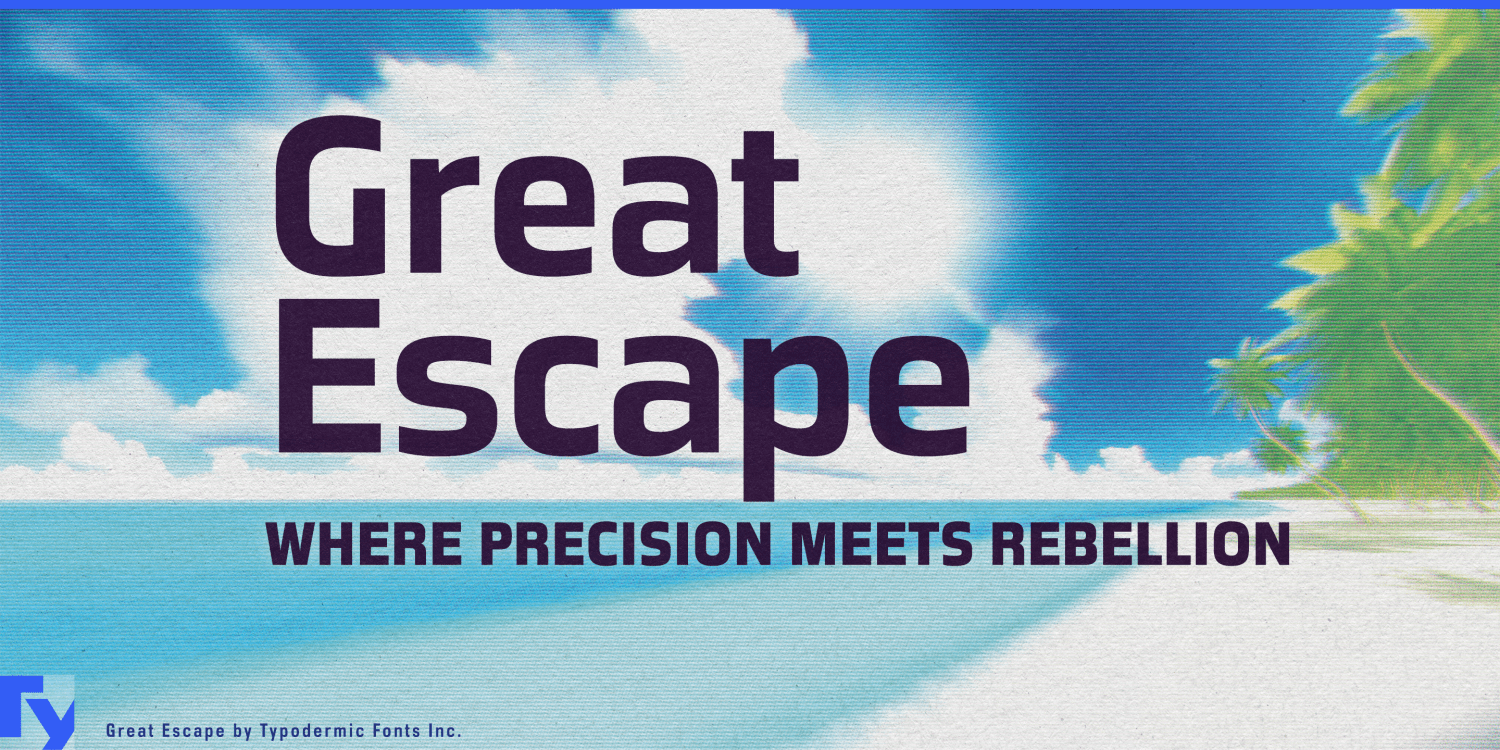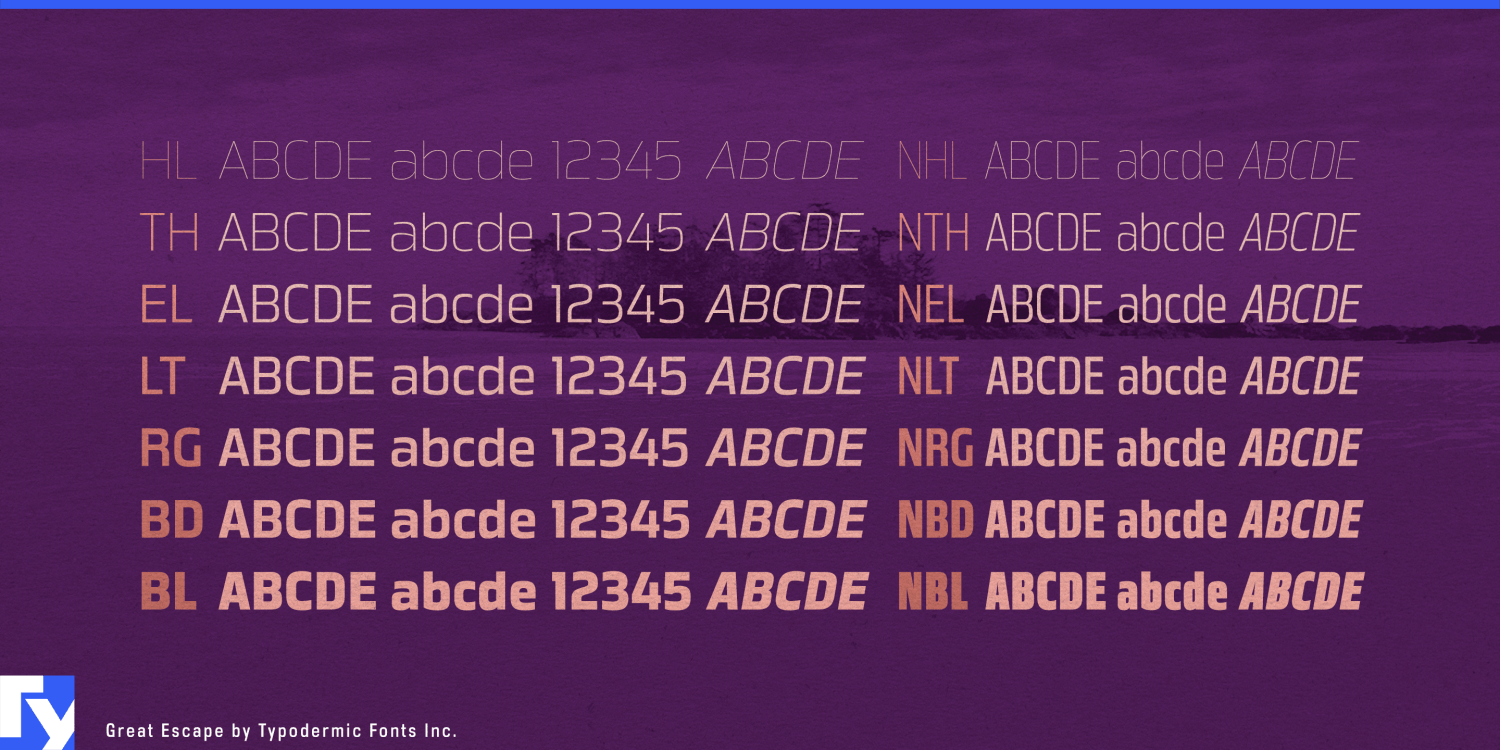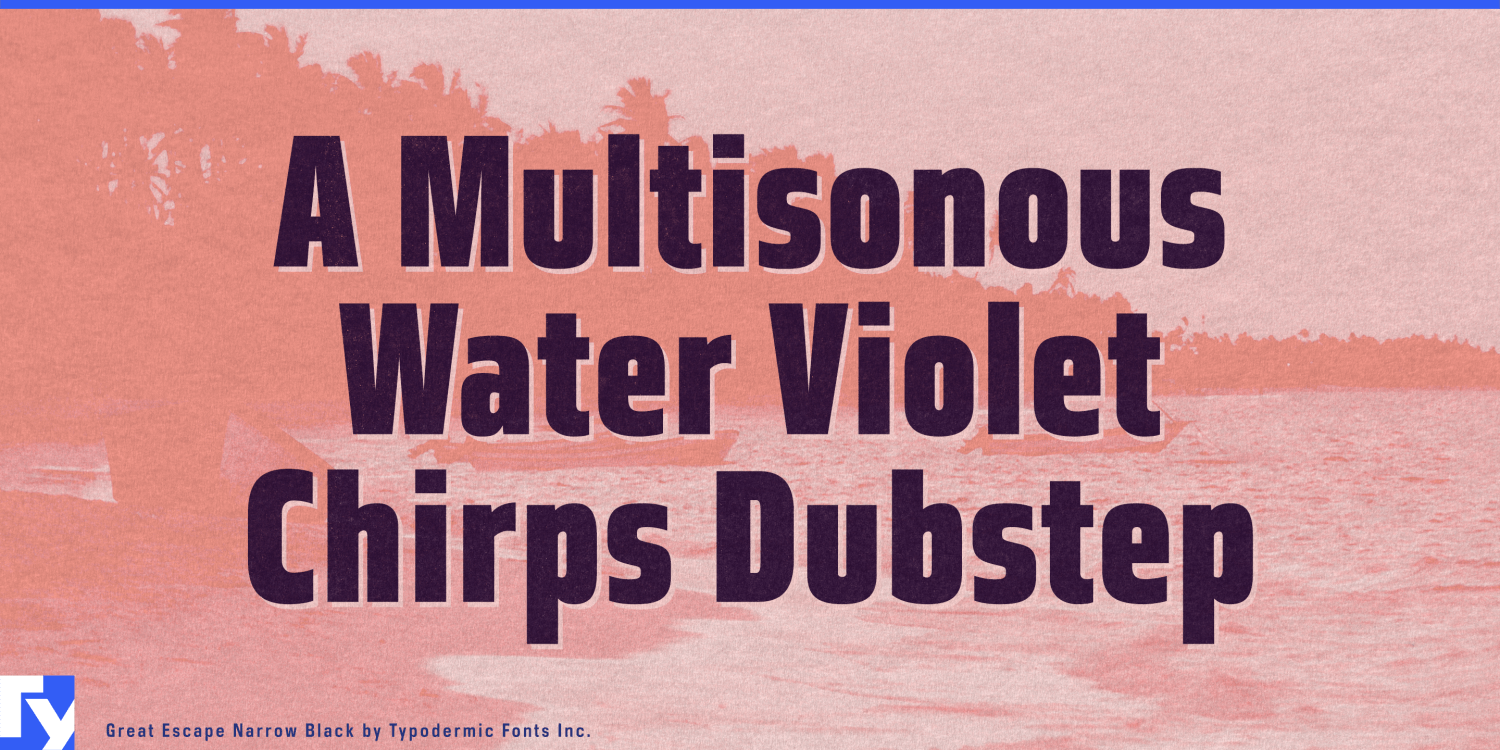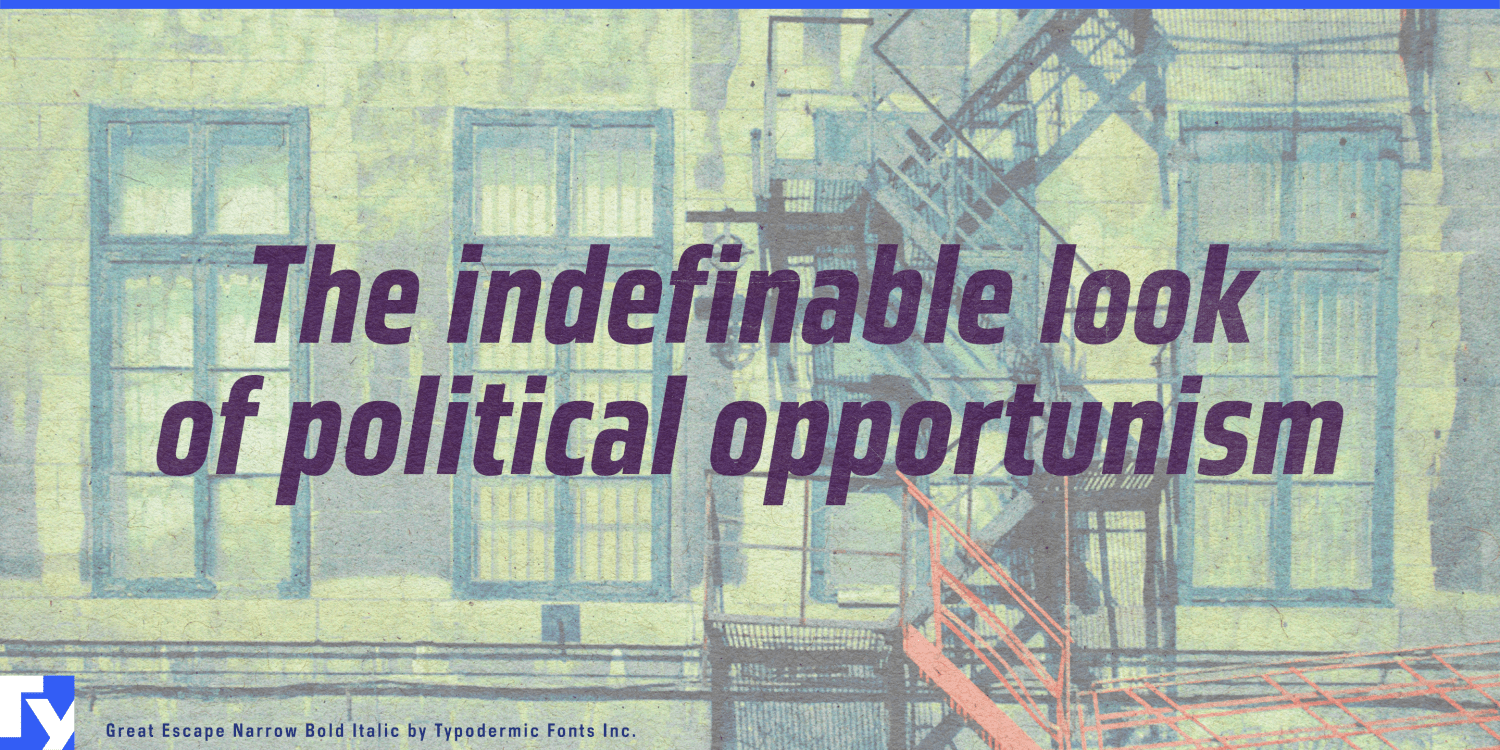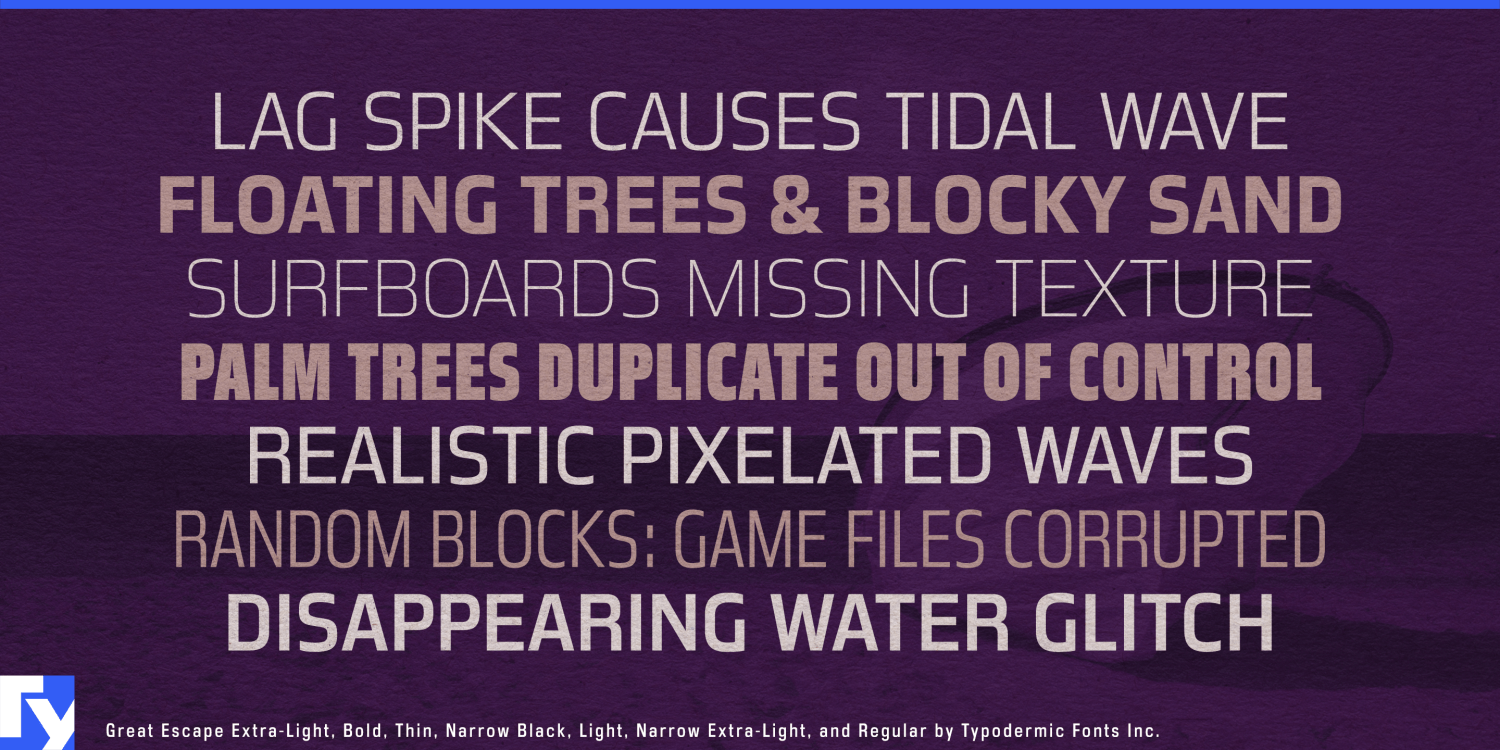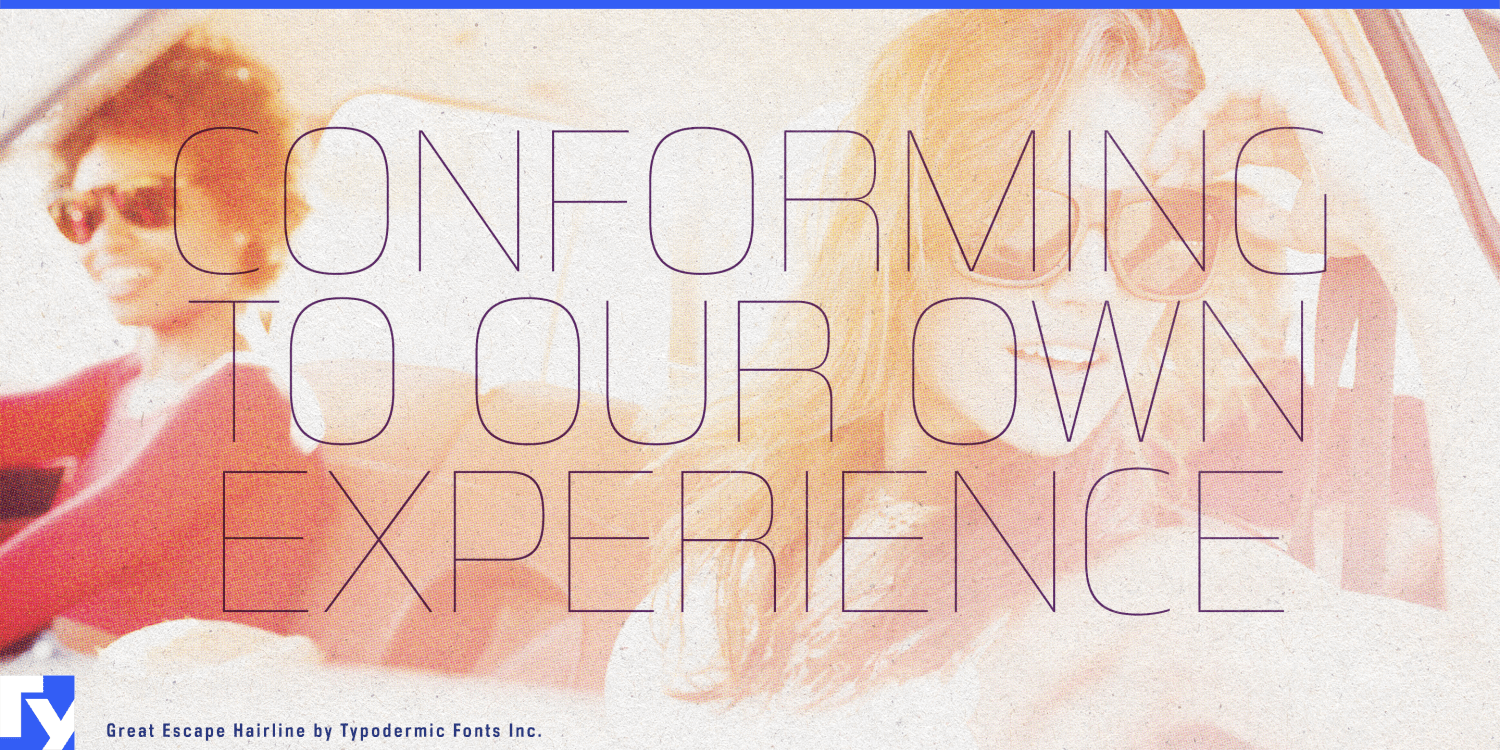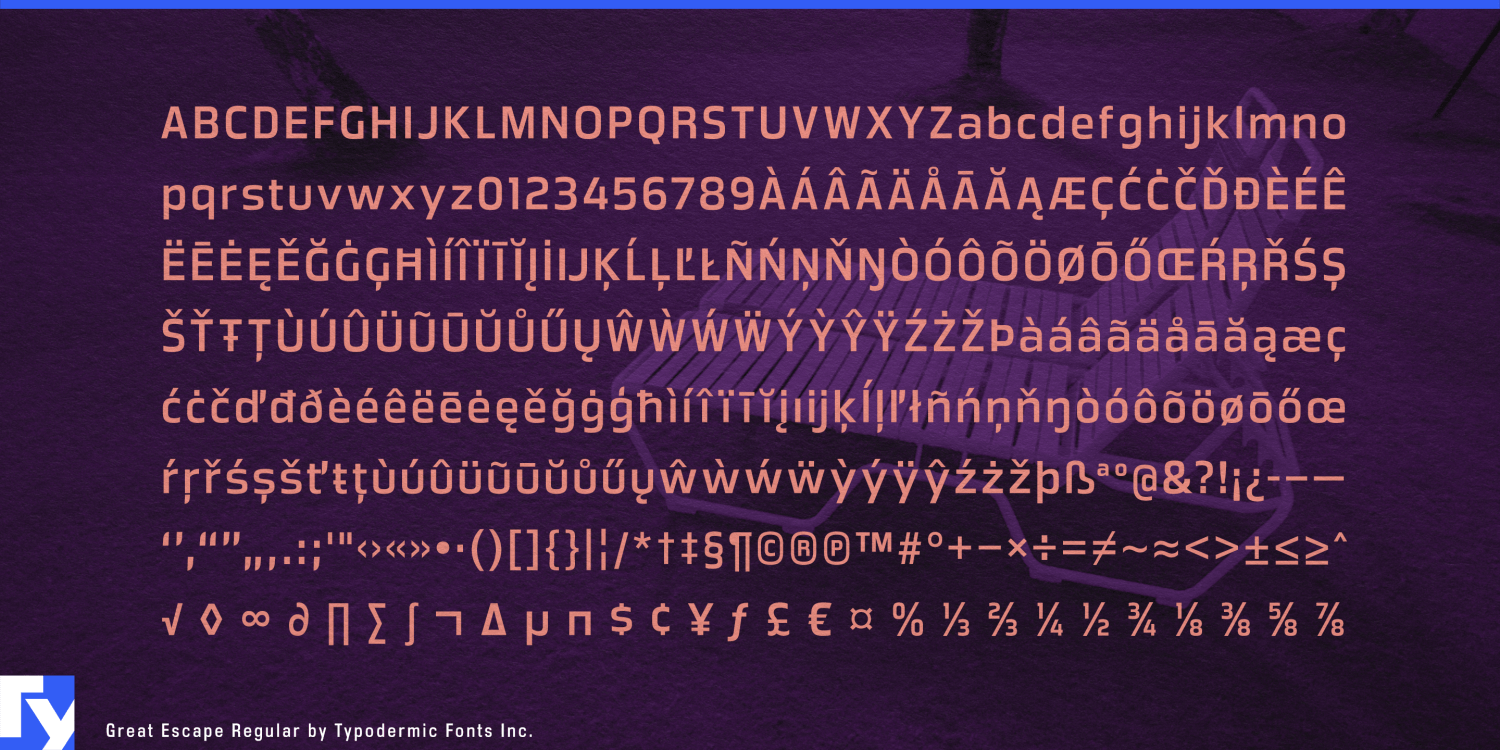
Great Escape
Font Family by Typodermic
Buy NowGreat Escape gives information-heavy campaigns a recognizable square-sans voice. It is especially useful in hypermarkets and big-box retail, where typography must compete with product photography, prices, offer details, and irregular promotional panels. Weekly-special covers, hanging aisle banners, shelf-edge product messages, garden-centre category signs, electronics-department sale boards, and seasonal barbecue or back-to-school campaigns all benefit from its compact, emphatic presence.
The same visual language suits consumer equipment and performance products. Great Escape can carry model names printed on portable speakers, fitness machines, and coolers; it also fits e-bike accessory cartons, camping-stove feature panels, outdoor-product catalogues, comparison cards, and instruction-sheet headings. It suggests engineering without making consumer products look like laboratory equipment.
Cycling and running events offer another practical setting. Race titles must fit across start gantries, long team names squeeze onto jersey panels, and sponsor information competes for space along course barriers. Great Escape can organize number plates, route signs, sponsor walls, result-board headings, broadcast straps, schedules, and video recap titles within one coherent event identity.
Science and engineering exhibitions draw on its more analytical side. It works for entrance-wall titles, photographic displays, wall timelines, object-label headings, machine-diagram annotations, floor directories, directional panels, and touchscreen category names. Its structure connects naturally with subjects such as transport, energy, communications, industrial design, and consumer technology without making educational material feel bureaucratic.
These uses are held together by Great Escape’s rounded-rectangular bowls, flat-sided curves, and compact proportions. Subtle stroke modulation and gently shaped joins soften the technical construction, while the direct single-storey a and g give the lowercase a distinctive, economical rhythm. Seven weights from Hairline to Black are available in regular and Narrow widths with matching italics, allowing the same recognizable forms to continue across promotional headlines, product information, event graphics, and exhibition text.